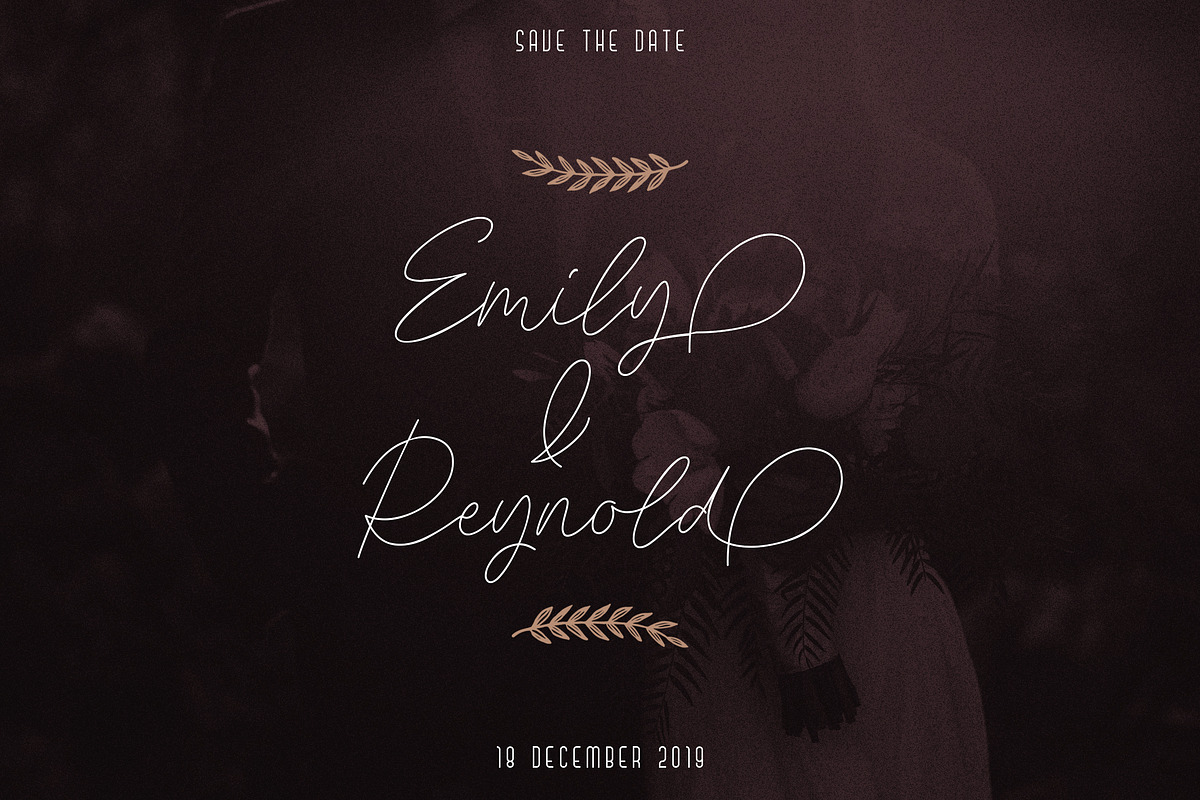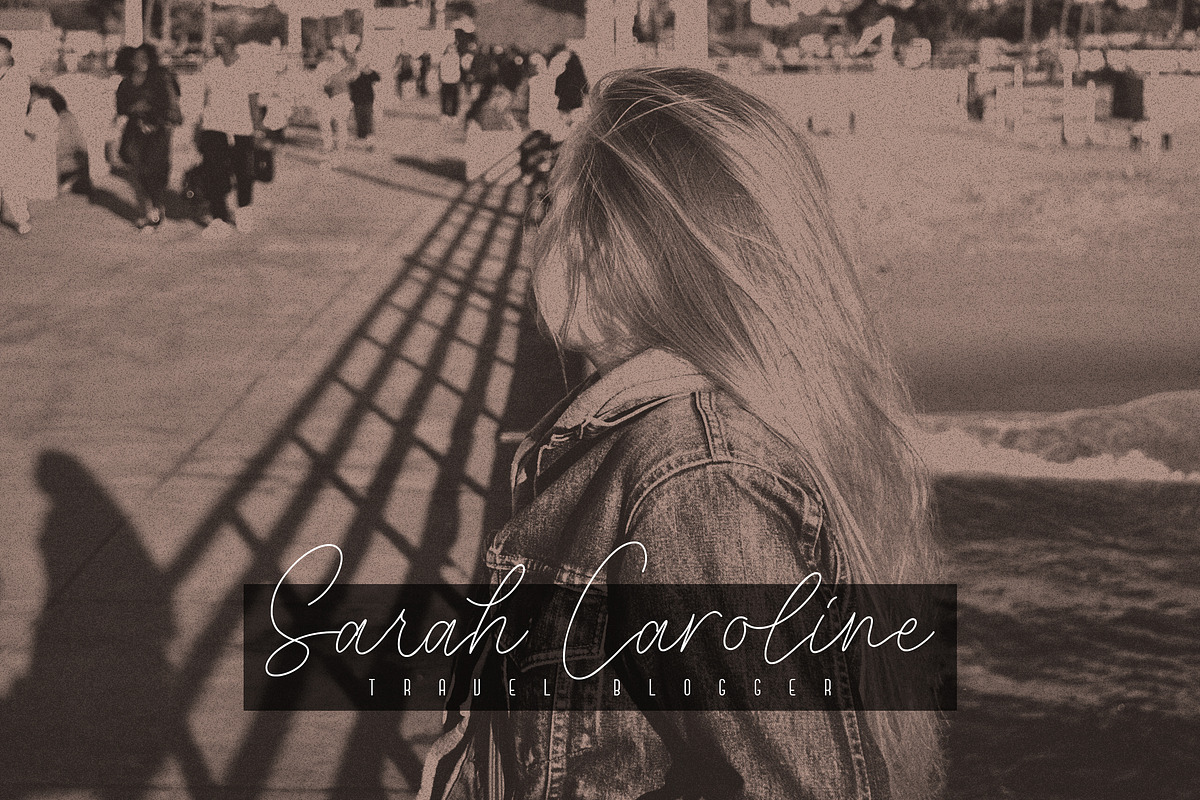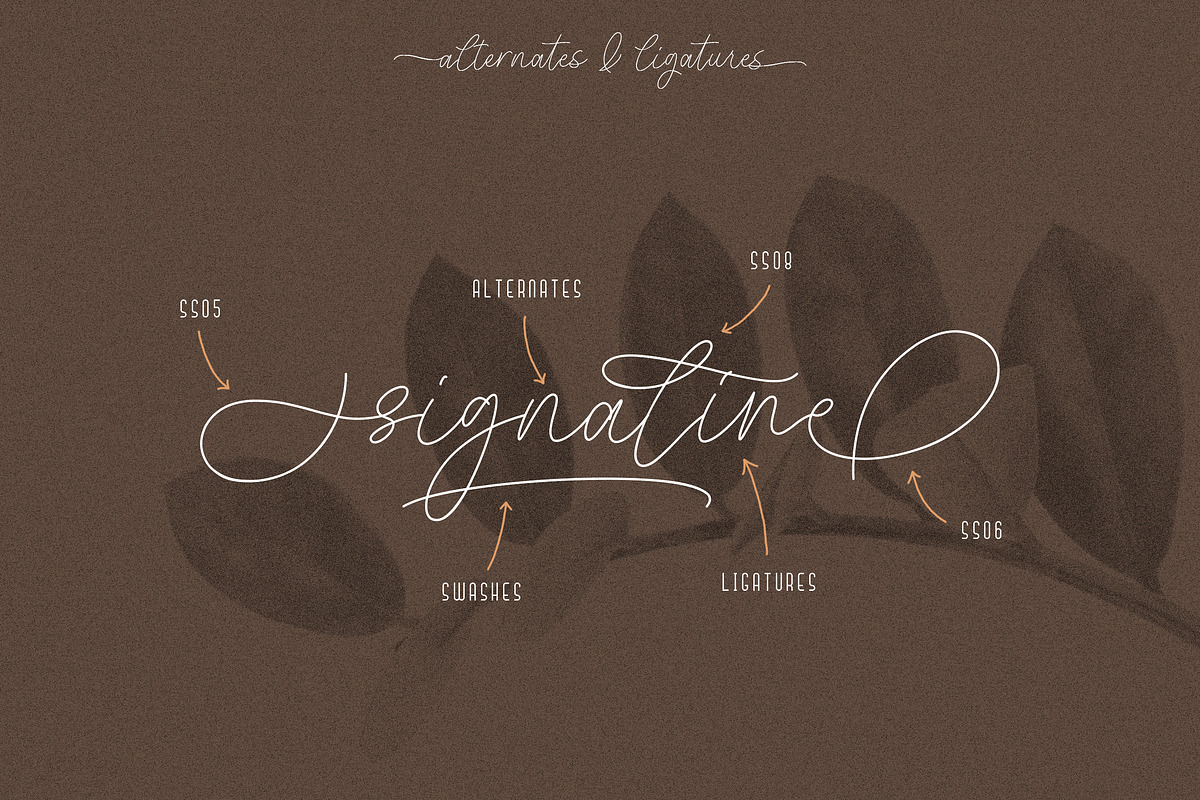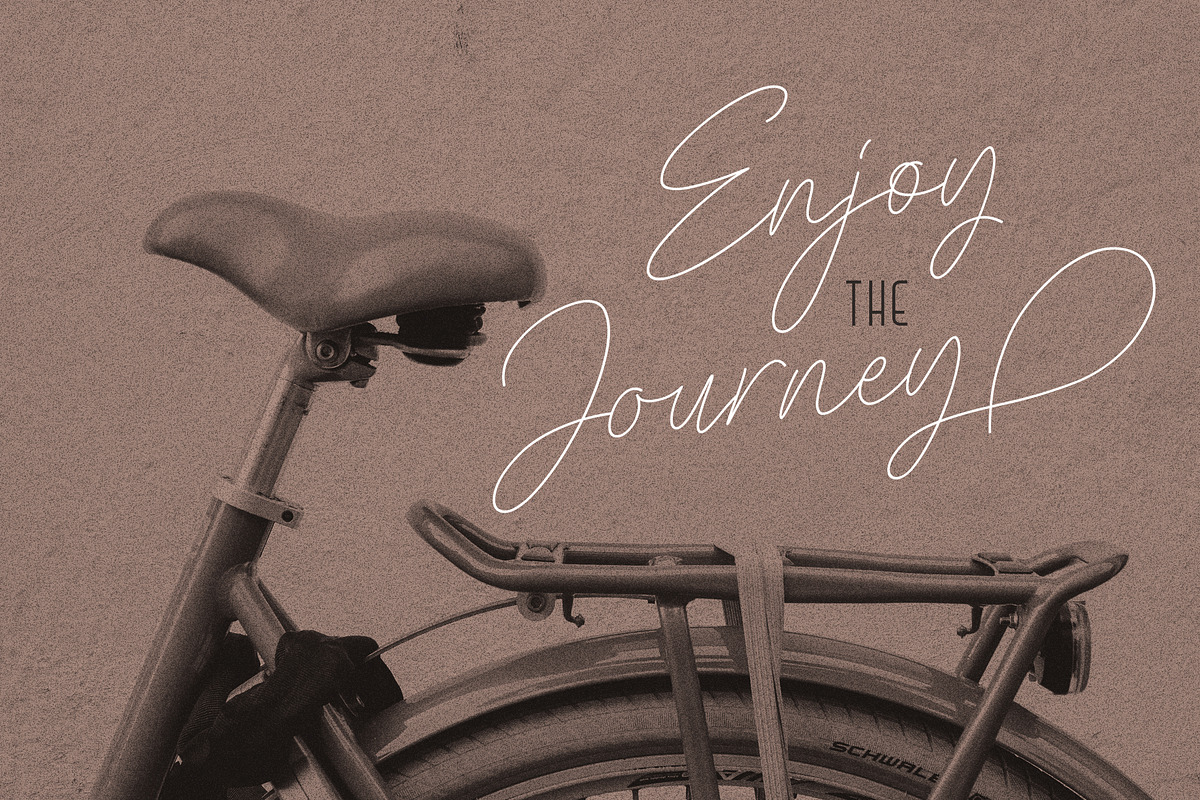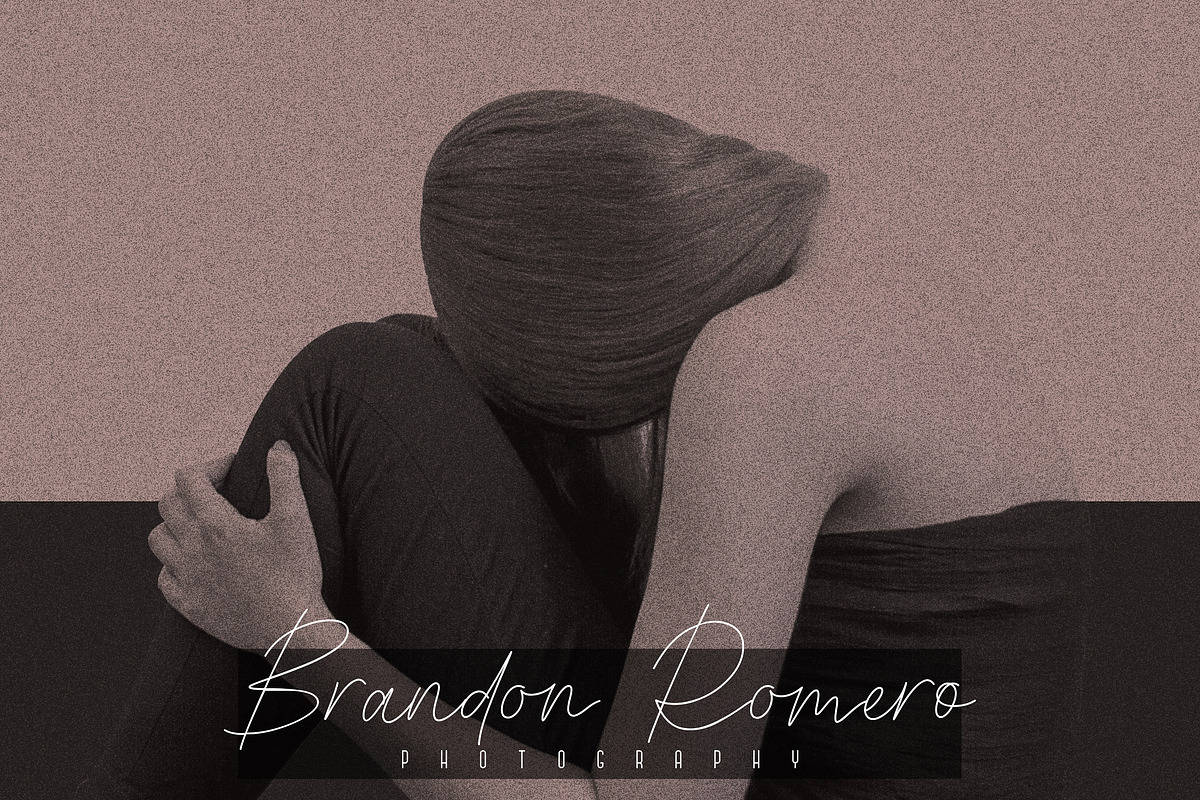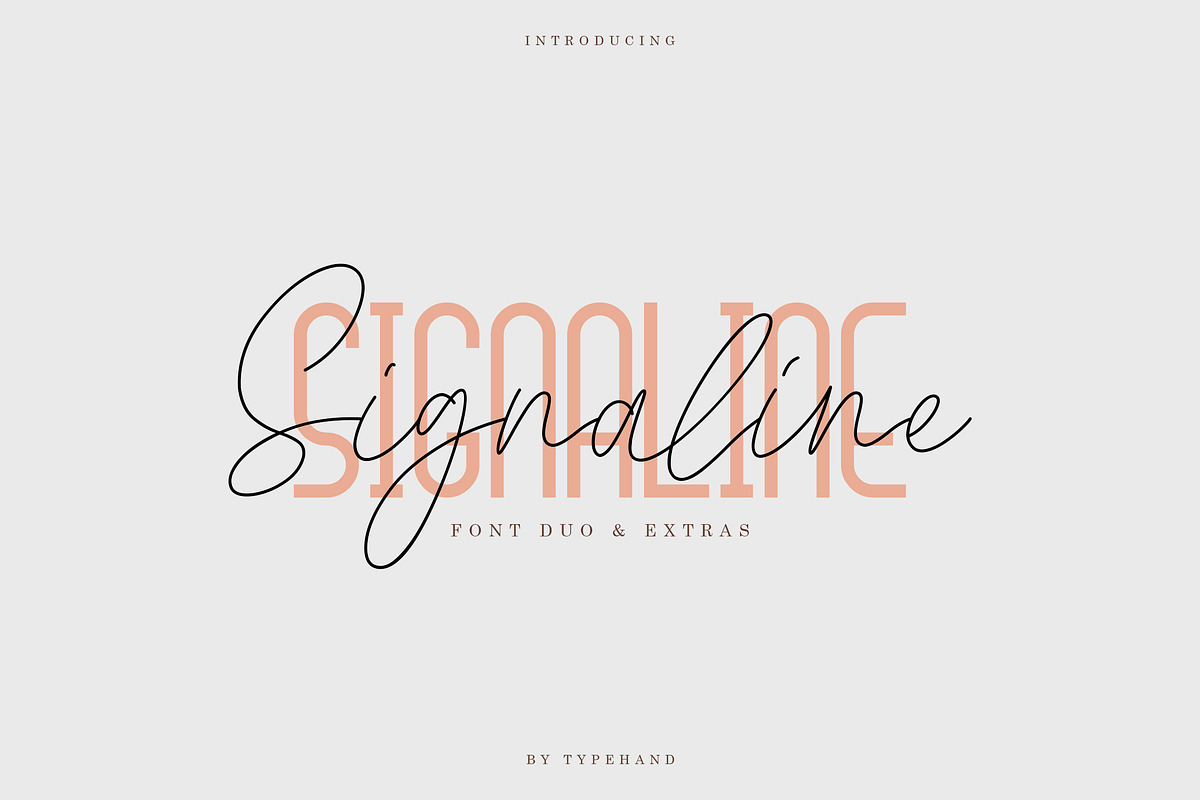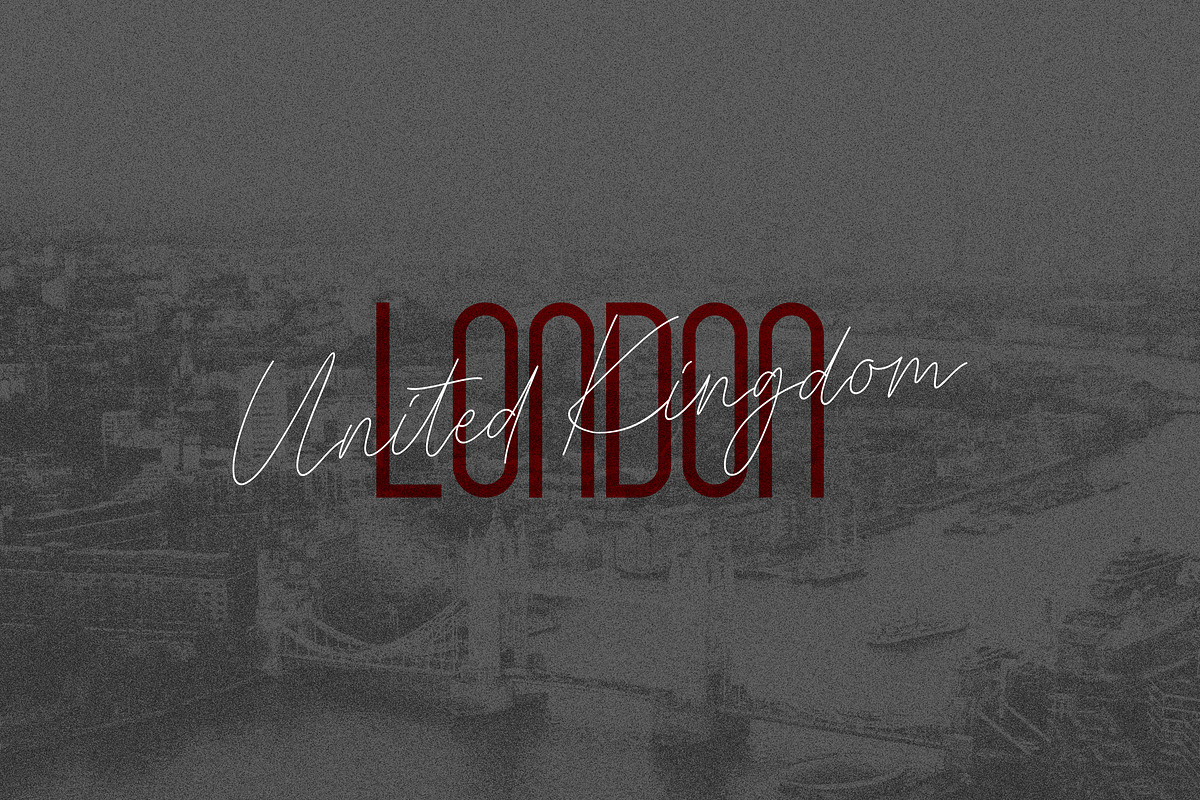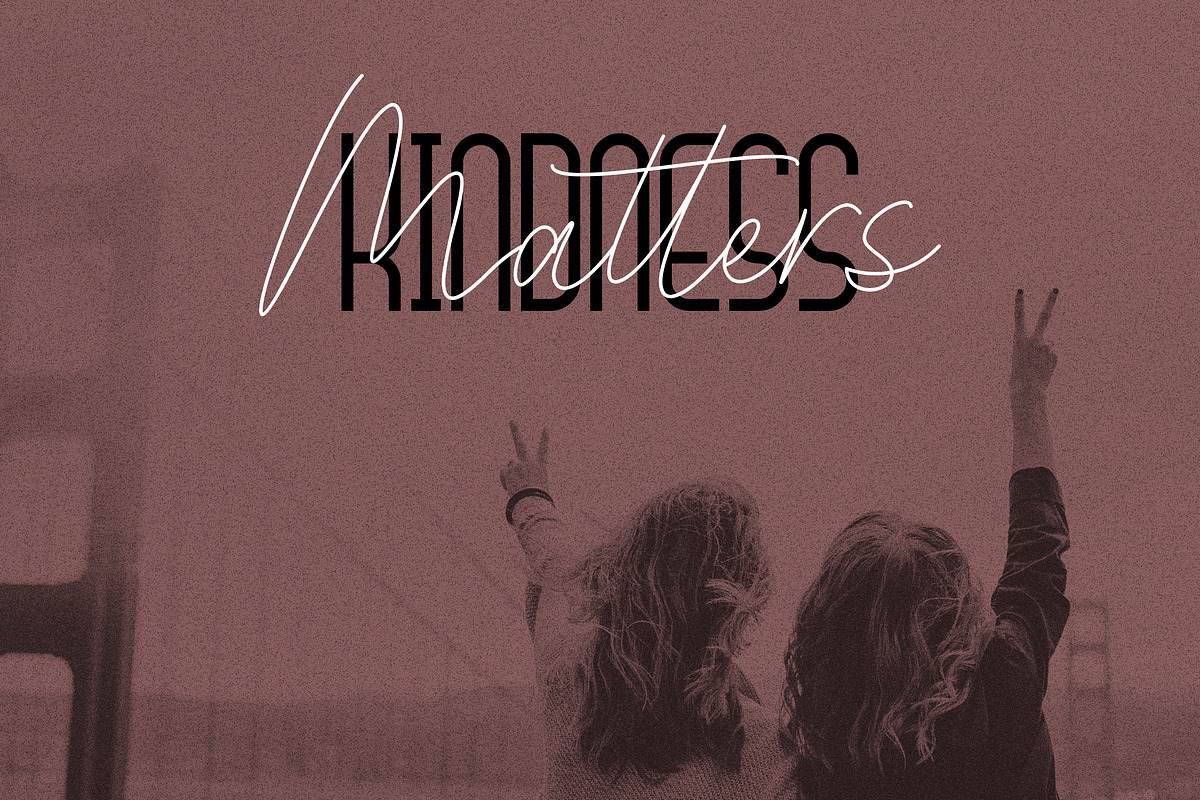
Signaline - Font Duo + Extras
Say Hi to Signaline. We created this with vibe of real hand lettering. This is Perfect for your BRANDING not just branding you can do design, wedding, funny logos with this font. These typeface work well for many different aesthetics. this typeface work well with Liquor Labels, Signage, & any type of signature-styled logo.
Signaline is handwritten signature script with a natural & stylish flow. This collection of scripts is perfect for personal branding.
Signaline also includes full set of uppercase and lowercase letters, multilingual symbols, numeral, punctuation. This font would be perfect for all types of printing techniques you can embroidery, laser cut, gold foil etc.